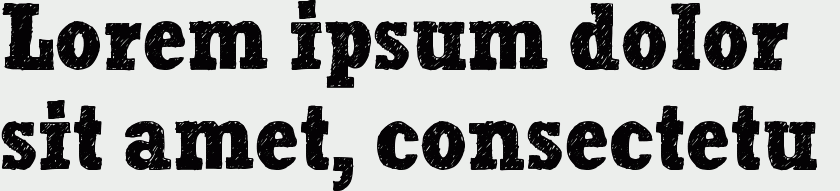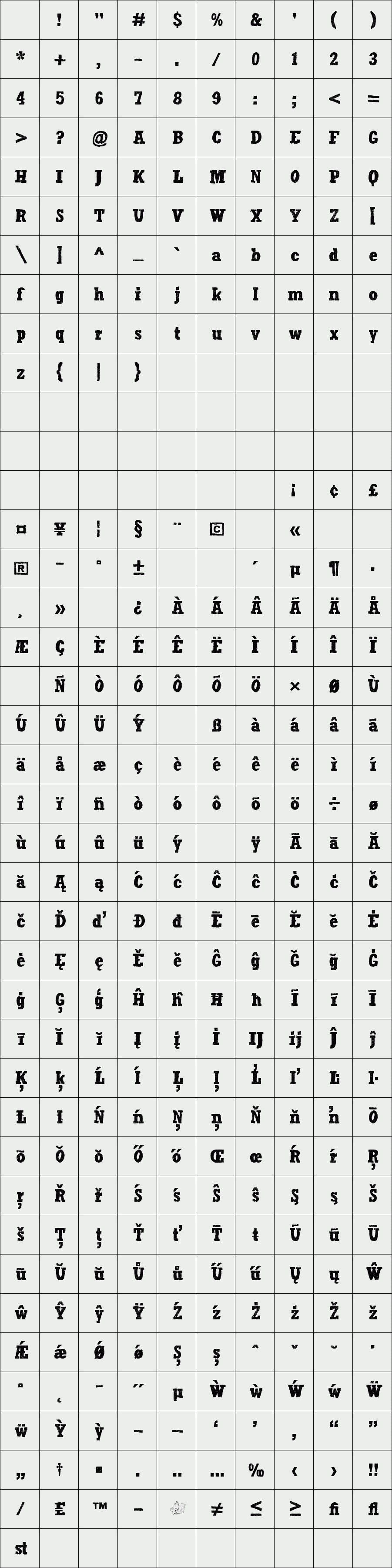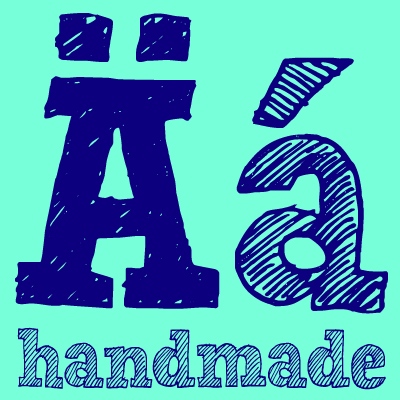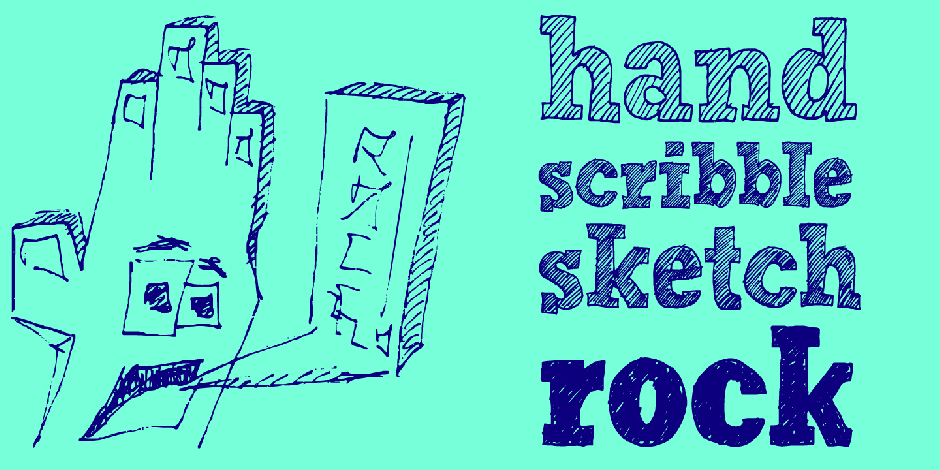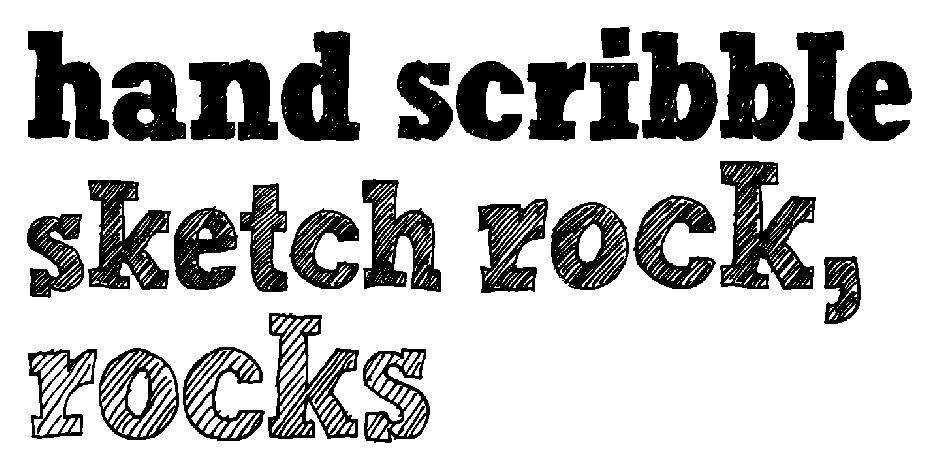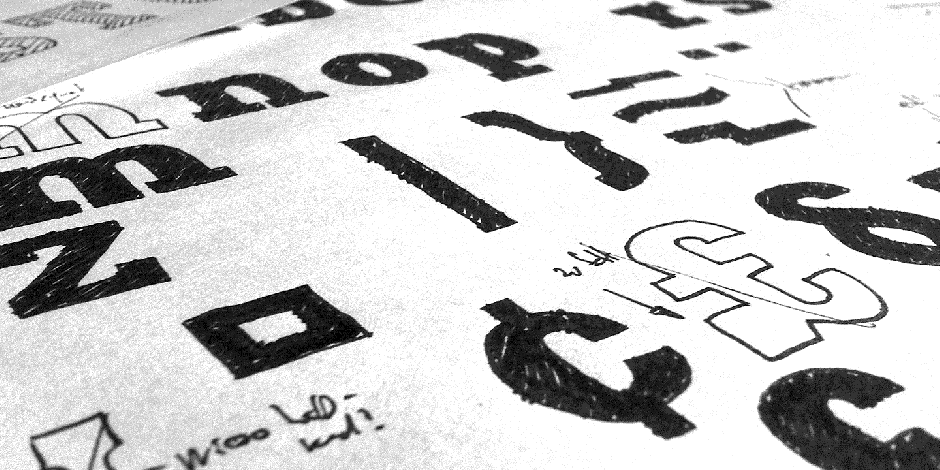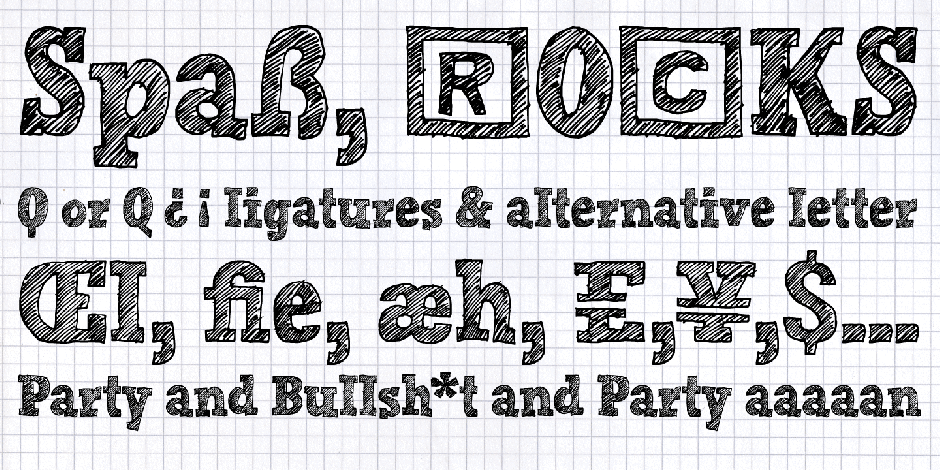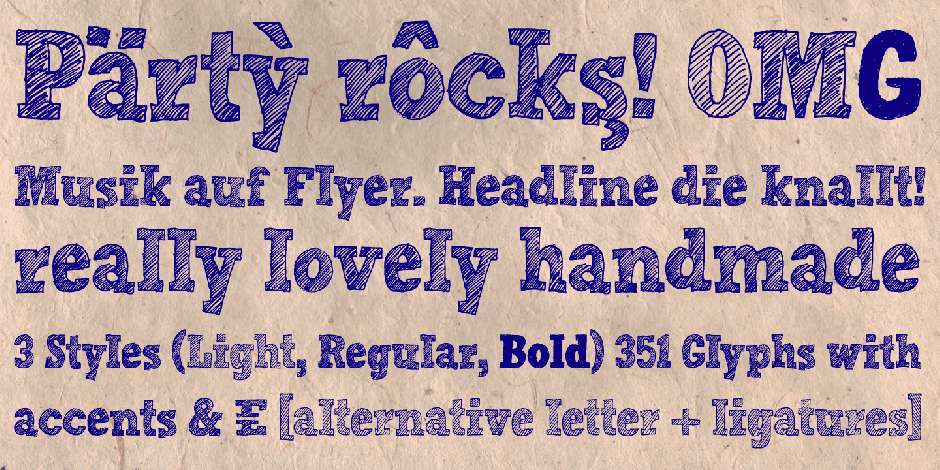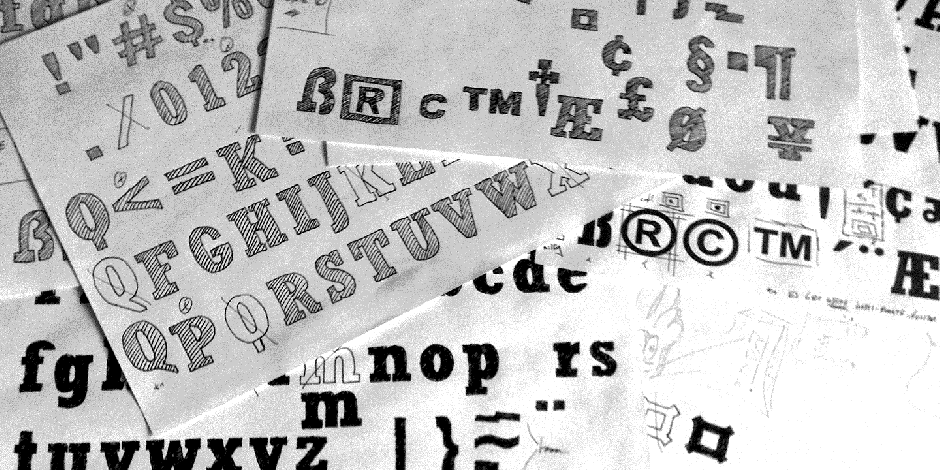
Hand Scribble Sketch Rock
/ Hand Scribble Sketch Rock_bold
An own interpretation of a classic egyptienne/slab serif typeface with modern and fancy handmade haptics/hatching. The 3 styles/weights fits perfectly in each font size. From light till bold. All 3 styles are handemade sketched for diverse display size.
This heavy, sketched, scribbled, handmade slab serif font “Hand Scribble Sketch Rock” with many language support would look good in headlines. Magazines or websites, party flyer, movie posters, music Poster, music covers or webbanner.
Headline Font | Display Font | Slab Serif “Hand Scribble Sketch Rock”.
An OpenType Font with 351 glyphs, alternative letters and ligatures (with accents & €) & 3 styles (regular, bold, light)